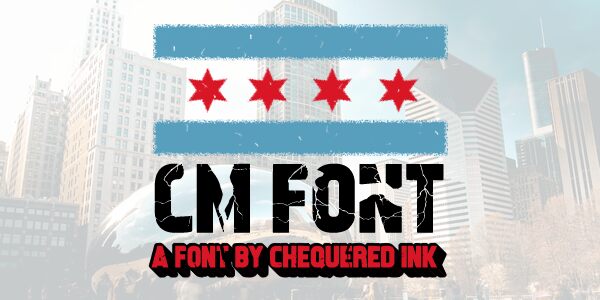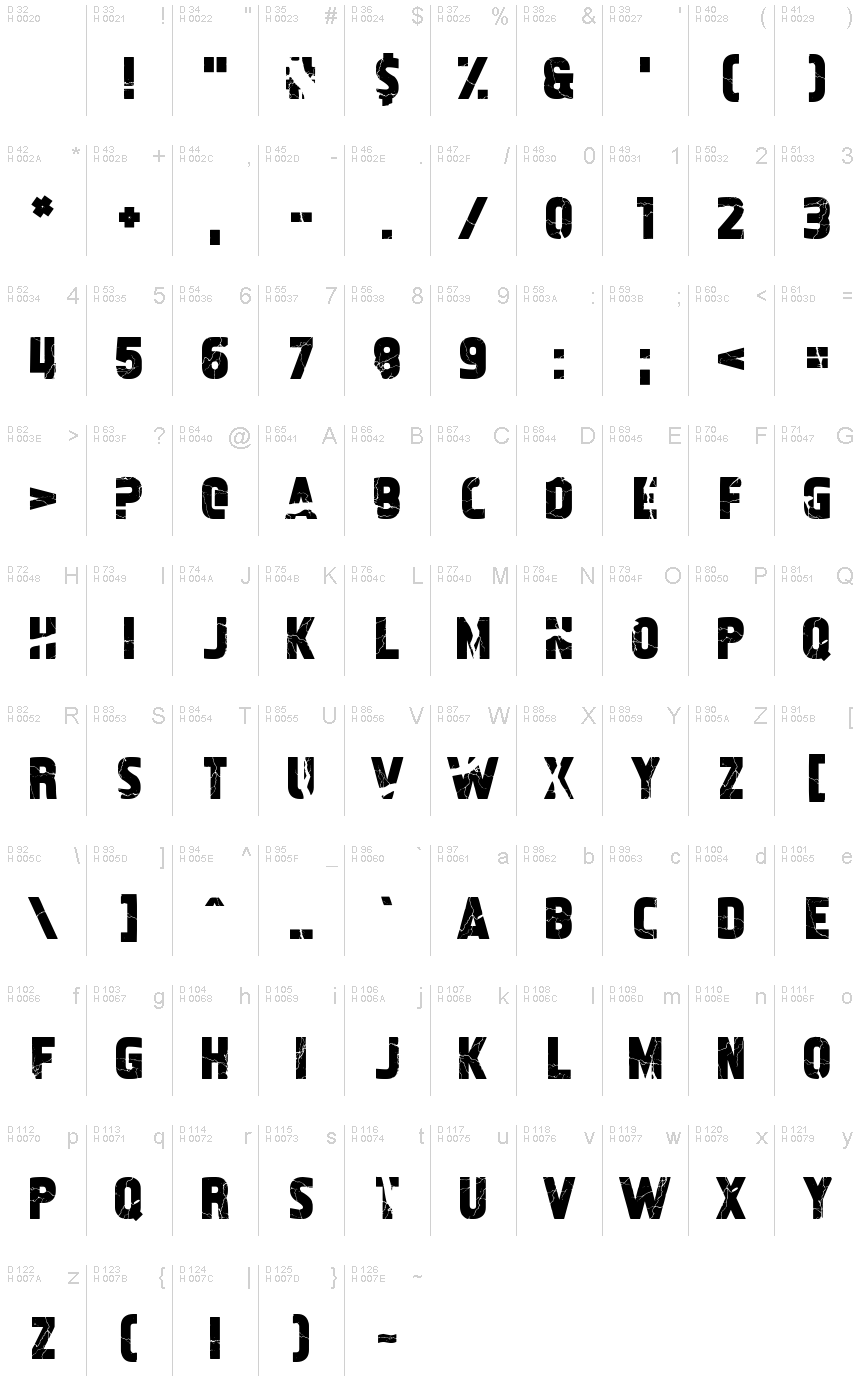
CM Font
CM Font, designed by Chequered Ink, is a bold, condensed display font with a striking eroded aesthetic. The chiseled, gritty letterforms exude a rugged, industrial sensibility, making it an ideal choice for branding, editorial, and advertising designs that require a sense of raw power and resilience. The condensed width allows for impactful headline text, while the bold weight ensures excellent legibility across various mediums.
This font's versatility extends beyond headlines, as it can also be effectively utilized for subheadings, pull quotes, and even body text in design projects that aim to convey a sense of weathered authenticity. CM Font's unique visual character lends itself particularly well to the realm of modern, edgy graphic design.